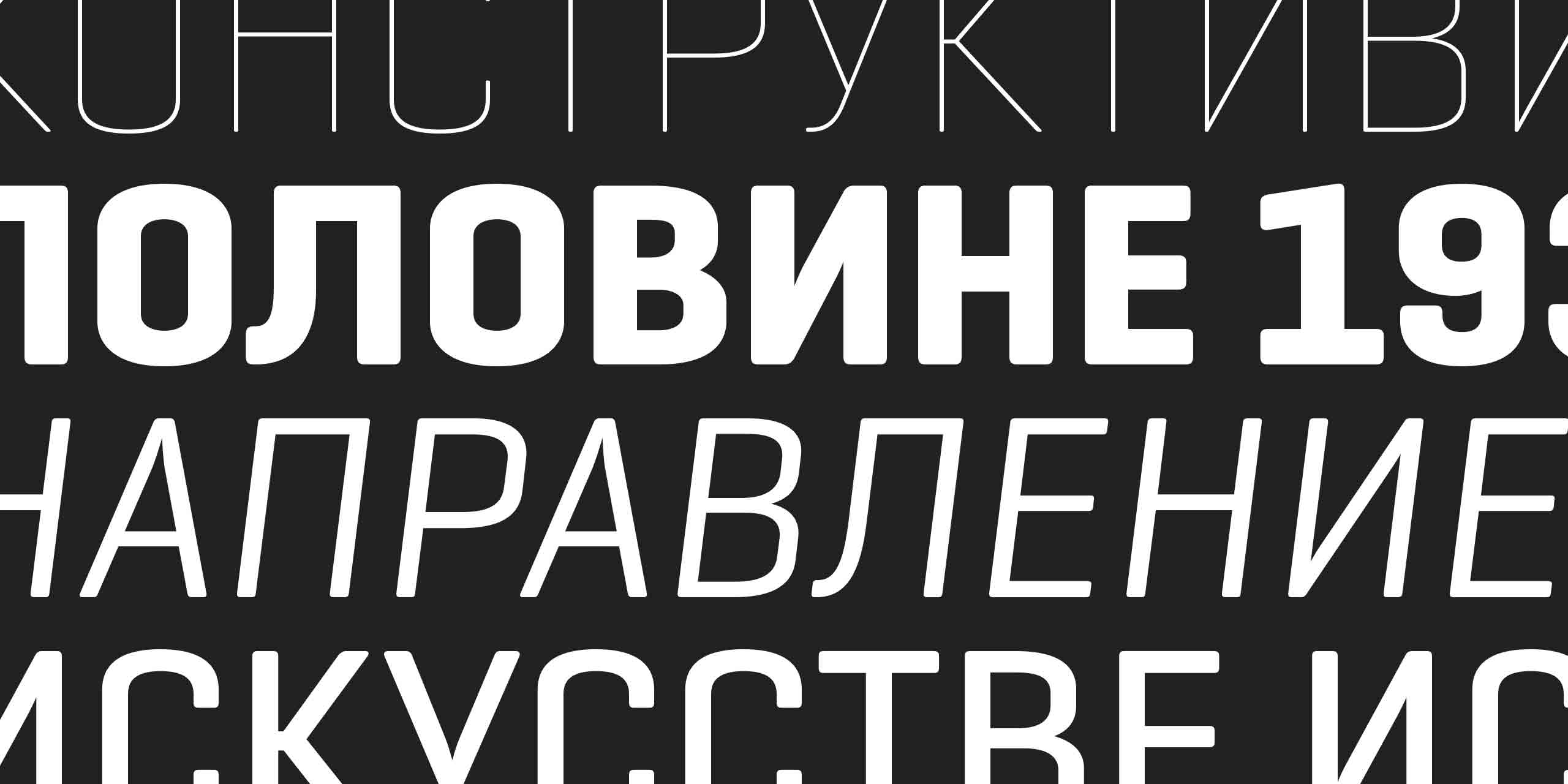
Modern Cyrillic 2021
Modern Cyrillic 2021 is an international type design competition. It is a sequel to Kyrillitsa’99, Modern Cyrillic 2009, 2014 and 2019. The aim of the competition is to get the objective evidence of the current state of Cyrillic type design and find the best examples of its development.
Роман Шамин
Martian Grotesk
Илья Буравчиков
Kharms Display
Евгений Анфалов
Heymland
Александр Слобженинов
Relaate Serif
Vera Evstafieva, Elena Novoselova
Literata
Toshi Omagari
Codelia
Jean-Baptiste Levée
Tesseract
Alexandra Korolkova
Art director of Paratype. Participated in Public Types of Russian Federation project as leading designer.
The 9th recipient of Prix Charles Peignot (2013). Wrote a book on typography for beginners (in Russian) «Live Typography». Spoke at ATypI, TYPO Berlin, TypeCon, TYPO Labs, Serebro Nabora, Typofest, Typetersburg.
Alexander Lubovenko
Type designer, graphic designer and programmer combining in one person. A graduate of Type and typography course of the British school of Art and Design (Moscow. 2014). Works at Paratype and uses Python scripting for advanced font development.
Yuri Gordon
Artist, working with text. Illustrator, type and graphic designer and writer. Yuri has written a few books, including «The Book of Letters: from Aa to Яя». He made a lot of artist books and art maps.
Valery Golyzhenkov
Graphic and type designer, teacher, partner in Letterhead Studio, founder of Typoholic.ru and member of the editorial board of the Type Journal.
Ivan Velichko
Иван Величко — сооснователь дизайн-бюро «Щука», кандидат искусствоведения, преподаватель в Британской высшей школе дизайна.
В «Щуке» вместе с партнером Иваном Васиным занимается арт-директированием всех проектов студии.
Konstantin Frolov
Konstantin Frolov is a graphic designer, specialising in branding and typographic experiments. Graduated from the British Higher School of Art and Design (Visual Communication course), worked with dozens of brands from Type. Today to Sberbank. Laureate of Pentawards, ADCR, Sreda festivals. Since 2018 he is a lead designer at Shuka.
Fiona Ross
Fiona specializes in type design and typography primarily for Arabic, South Asian, and Thai scripts, having a background in languages with a PhD in Indian Palaeography (SOAS). Fiona is a part-time member of staff of the Department of Typography and Graphic Communication at the University of Reading (UK), where she is Professor in Type Design. She is currently running a Leverhulme-funded ‘Women in Type’ research project: https://research.reading.ac.uk/women-in-type/. Fiona works as a consultant, type designer, author, and lecturer; her recent design work has been in collaboration with Tim Holloway, John Hudson and Neelakash Kshetrimayum for clients such as Ananda Bazar Patrika, Adobe, Microsoft, Monotype and Harvard University Press.
For her work in type design and education Fiona received the SoTA Typography Award (2014) and the Type Director’s Club Medal (2018)
Peter Biľak
Peter works in the field of editorial, graphic, and type design. In 1999 he started Typotheque type foundry, in 2000, together with Stuart Bailey he co-founded art & design journal Dot Dot Dot, in 2012 he started Works That Work, a magazine of unexpected creativity, in 2015 together with Andrej Krátky he co-founded Fontstand.com, a font rental platform. He collaborates with the choreographer Lukas Timulak on creation of modern dance performances, and together they started Make-Move-Think.org, a foundation for interdisciplinary artistic collaborations. Peter is teaching at the Type & Media, postgraduate course at the Royal Academy of Arts, The Hague. Member of AGI (Alliance Graphique Internationale).
John Boardley
John Boardley is author of Typographic Firsts: Adventures in Early Printing, and founder of the world’s most popular typography blog, I Love Typography (since 2007).
In addition to editing ILT, he is writing several more books on the early history of type and the printed book. John was born in the UK but now lives in Vietnam, via Japan.
Oleg Macujev
Type designer and calligrapher. He graduated from Lomonosov Moscow State University («design of mass media» specialization), in 2004–2007 he studied at the Alexander Tarbeev Type Design Workshop. Winner at Modern Cyrillic 09, 14 and 2019. The 2nd prize at Granshan 2011. Works were shortlisted at New Cyrillic 2012 and Call for type 2013 (the Gutenberg Museum Mainz). ‘Russian Writing: Tradition And Experimentation’ exhibition organizer.
Christian Schwartz
Christian Schwartz (born 1977) is a partner, with London-based designer Paul Barnes, in the type foundry Commercial Type, and heads up the company’s New York office. Schwartz has published fonts with many respected independent foundries including House Industries, Emigre, and Font Bureau, and has designed proprietary typefaces for corporations and publications worldwide.
Schwartz and Barnes began an ongoing collaboration in 2005 with their extensive typeface system for The Guardian, and together with their team have since completed custom typefaces for clients including Esquire, the Museum of Modern Art (MoMA) in New York, Yandex, and Vanity Fair. In 2007, Schwartz was awarded the prestigious Prix Charles Peignot, given every four or five years by the Association Typographique Internationale to a designer under 35 who has made «an outstanding contribution to the field of type design».